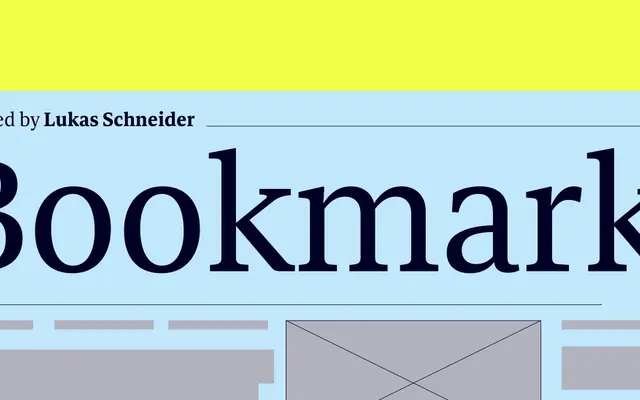
A four-weight Latin serif from Indian Type Foundry, covering Light through Bold for text and editorial use.
Offered in four weights from Light to Bold, Bookmark is a compact serif family suited to running text and publication work. The range is tight but covers the most common editorial requirements without extended width or italic variants. Indian Type Foundry position it alongside other text serifs in their Latin catalogue such as Begum and Tara.
The page lists Bookmark under a serif classification with a formal weight range from Light to Bold, suggesting a text-oriented transitional or contemporary serif design typical of ITF's Latin offerings.